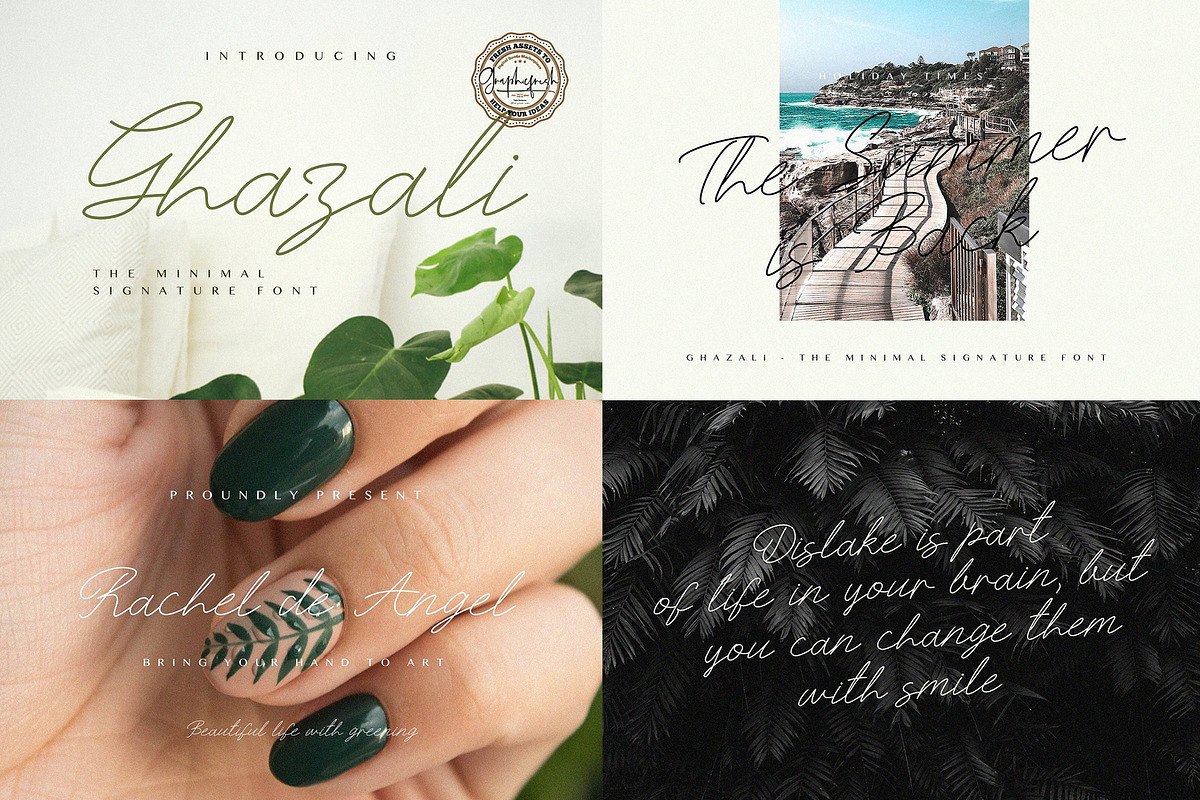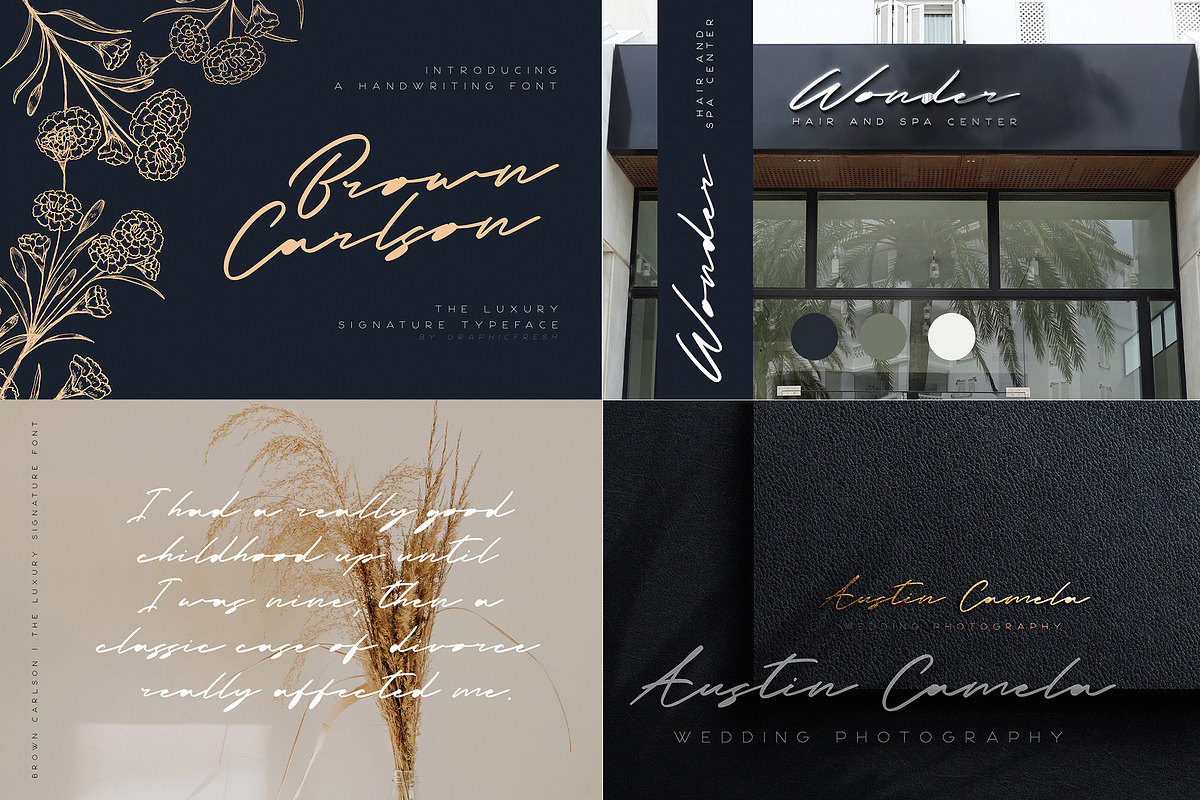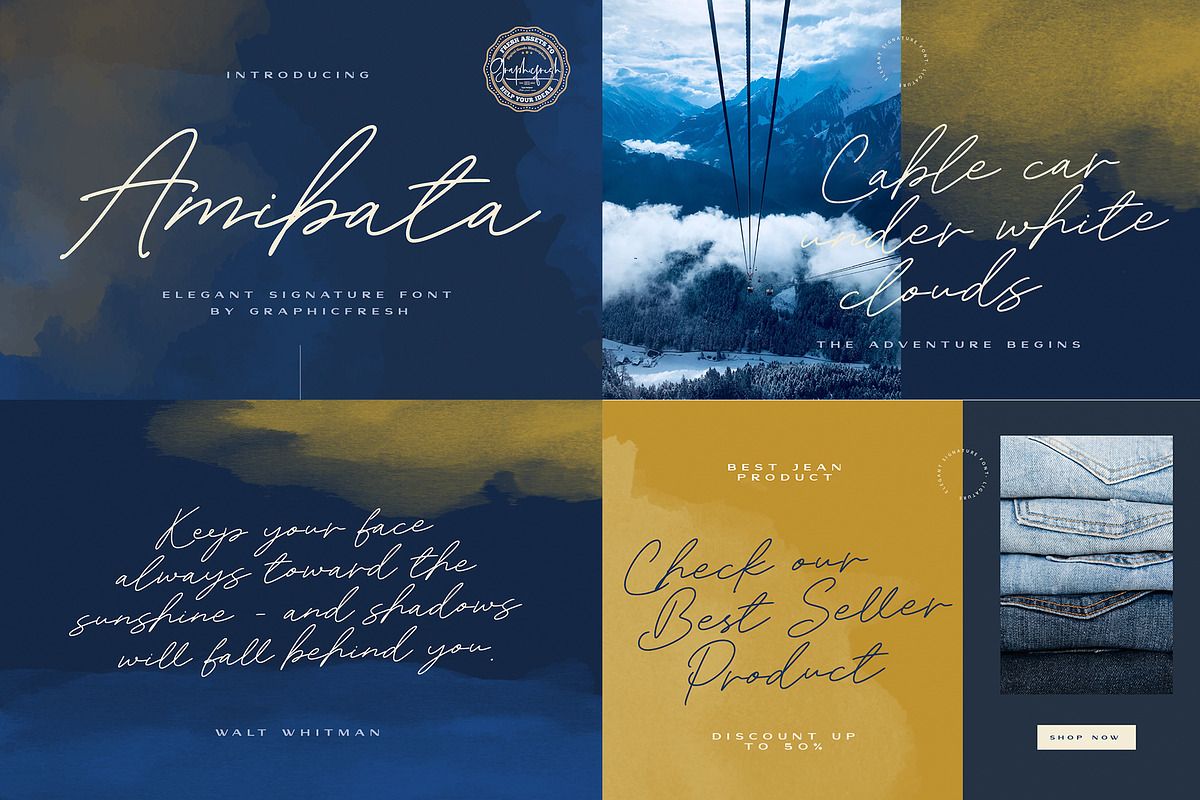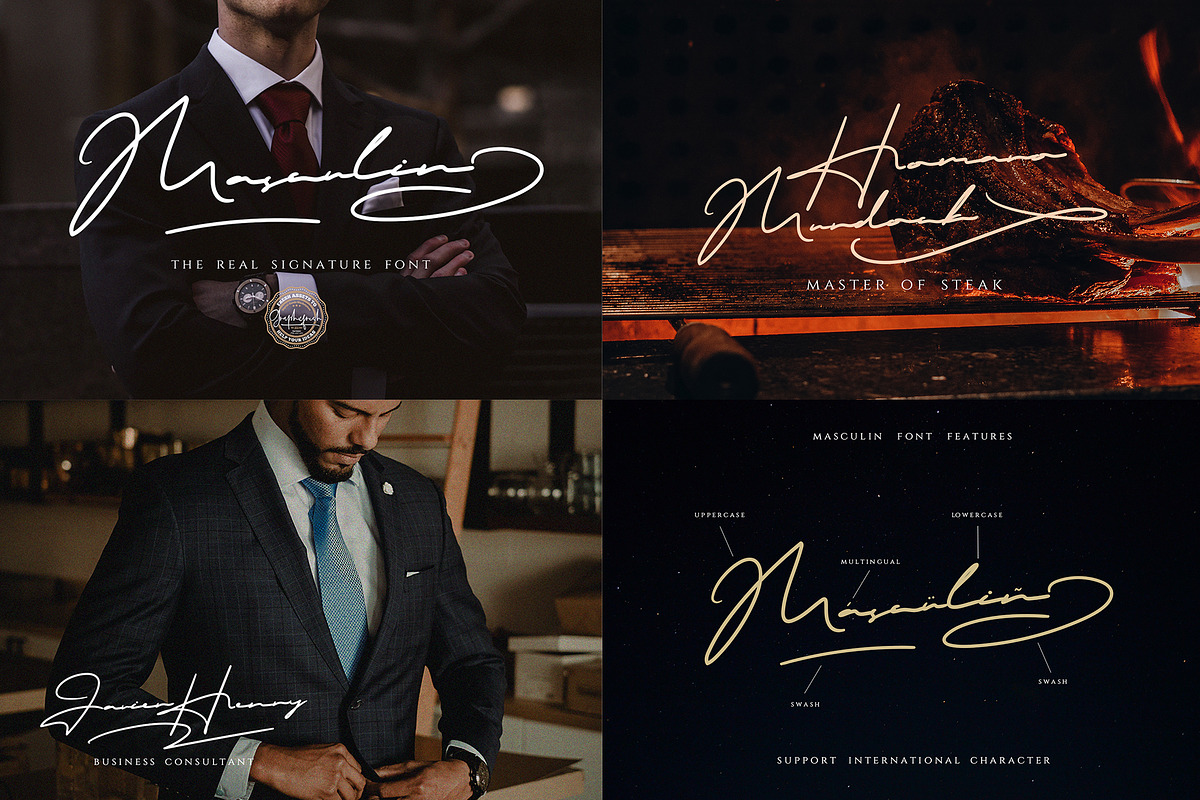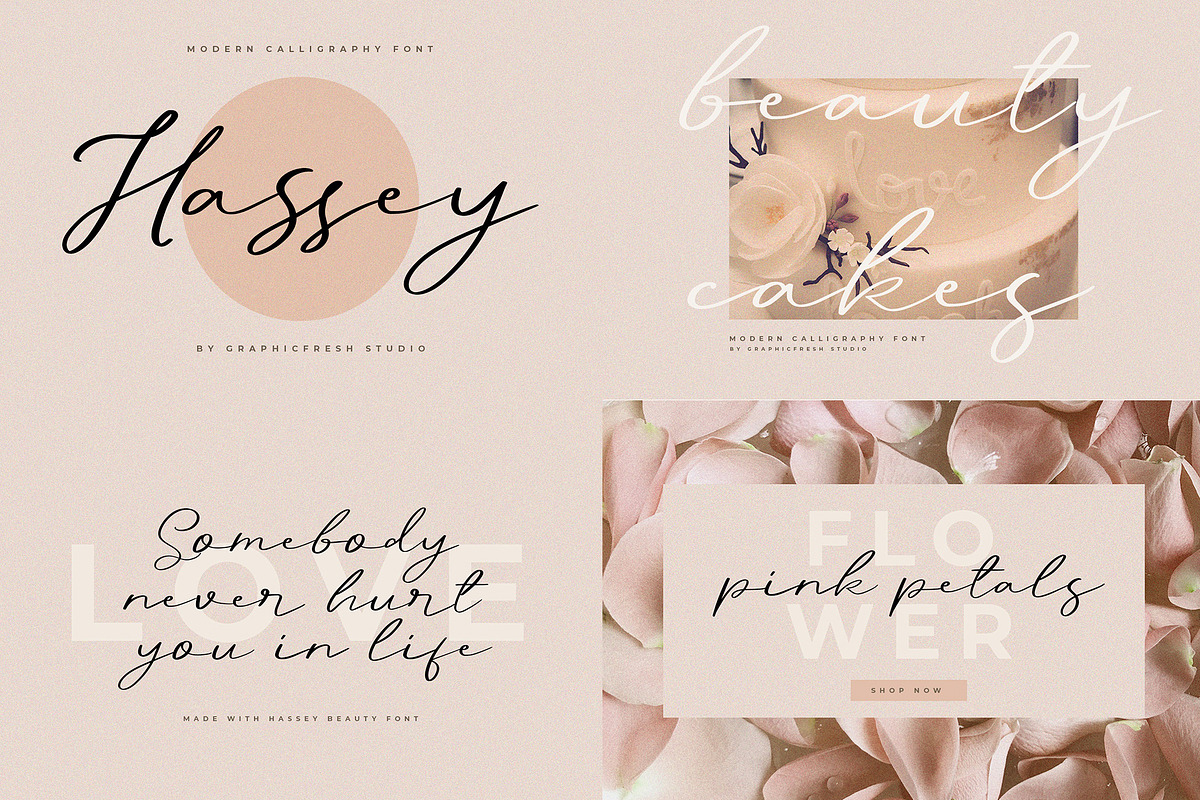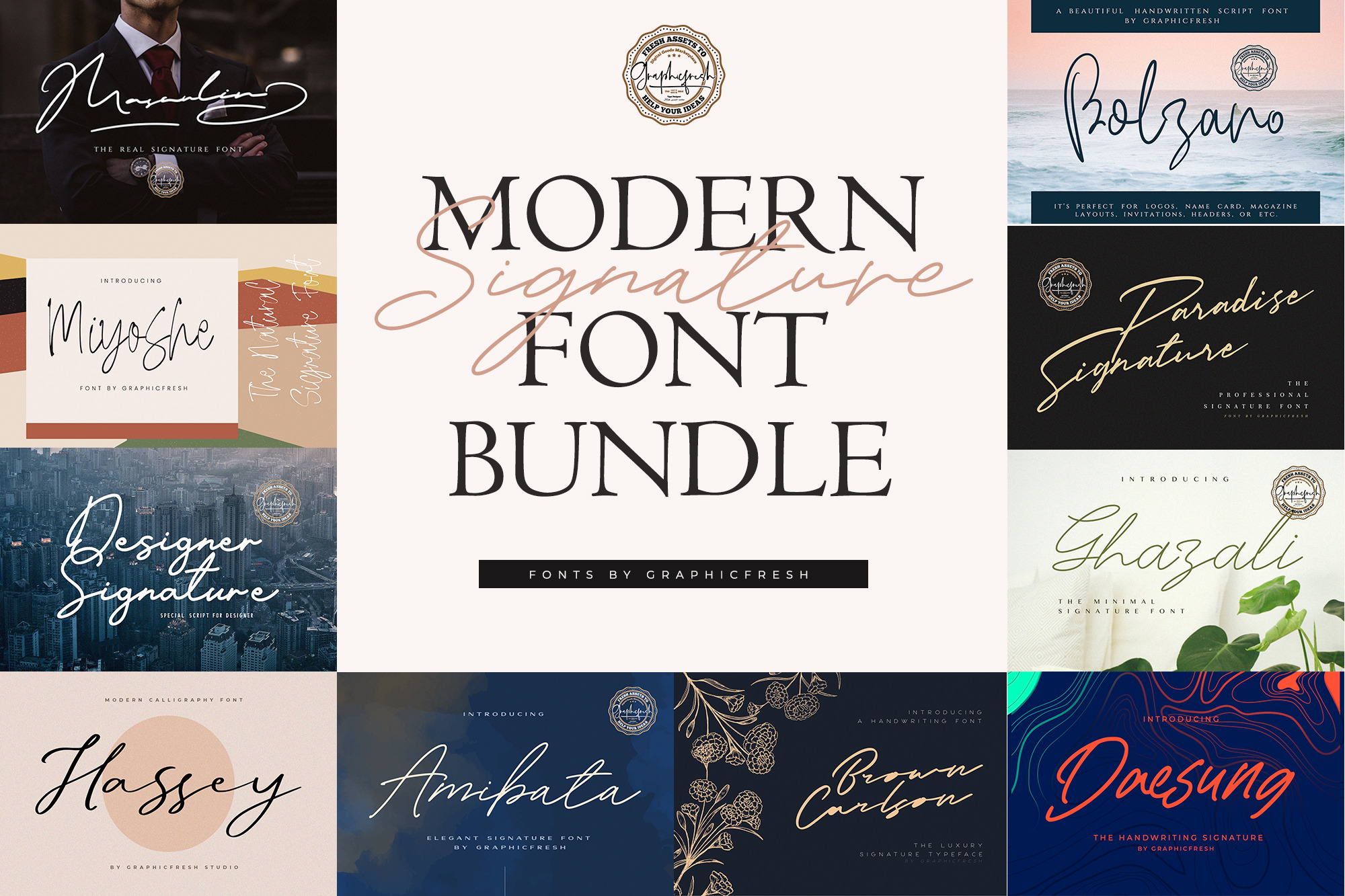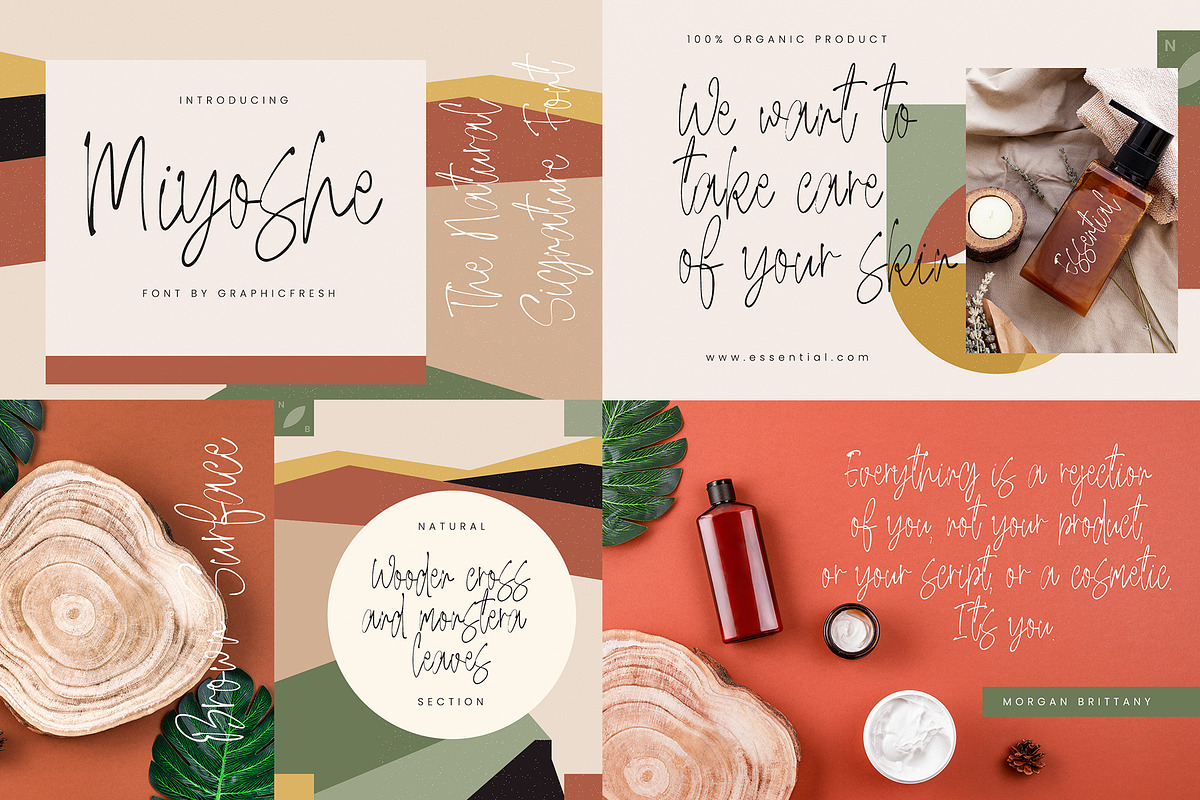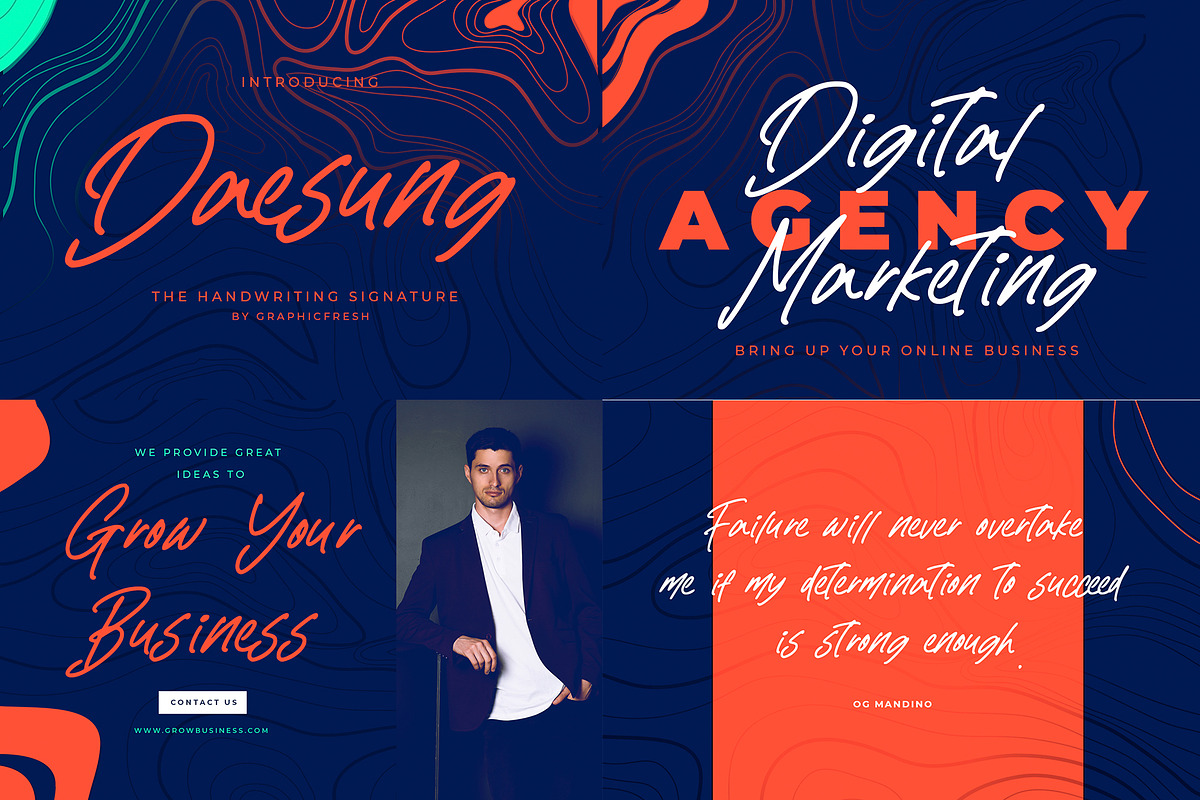
The Modern Signature Font Bundle
There are 10 fonts that I collected in this bundle. Each font that I create has its own characteristics, so each other is not the same. You can use this font for signature purposes. And it's very nice and fits well.
- Miyoshe : https://creativemarket.com/Graphicfresh/5895101-Miyoshe-The-Natural-Signature-Font
- Daesung : https://creativemarket.com/Graphicfresh/5895090-Daesung-The-Handwriting-Signature
- Amibata : https://creativemarket.com/Graphicfresh/5895066-Amibata-Elegant-Signature-Font
- Hassey : https://creativemarket.com/Graphicfresh/4446674-Hassey-A-Modern-Calligraphy-Font
- Paradise : https://creativemarket.com/Graphicfresh/4192407-Paradise-Signature-Font
- Brown Carlson : https://creativemarket.com/Graphicfresh/5213216-Brown-Carlson-The-Luxury-Signature
- Designer : https://creativemarket.com/Graphicfresh/4051930-Designer-Signature-Font
- Ghazaly : https://creativemarket.com/Graphicfresh/4108142-Ghazali-The-Minimal-Signature-Font
- Bolzano : https://creativemarket.com/Graphicfresh/3889670-Bolzano-A-Beautiful-Script-Font
- Masculin : https://creativemarket.com/Graphicfresh/3800667-MASCULIN-The-Real-Signature-Font